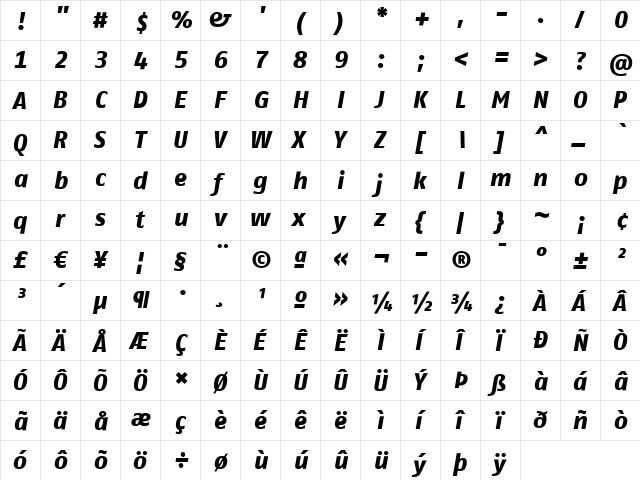
FagoNoTf ItalicExtrabold Font Preview
FagoNoTf ItalicExtrabold
Design Context for FagoNoTf Typeface
FagoNoTf is a composed and adaptable typeface that performs quietly and consistently across a wide range of design contexts. The slanted form adds forward momentum and visual energy. The heavy weight commands attention and anchors typographic hierarchies.
Pro Tip: Use FagoNoTf for emphasis, pull quotes, and subheadings where its slanted energy can add rhythm to the layout.